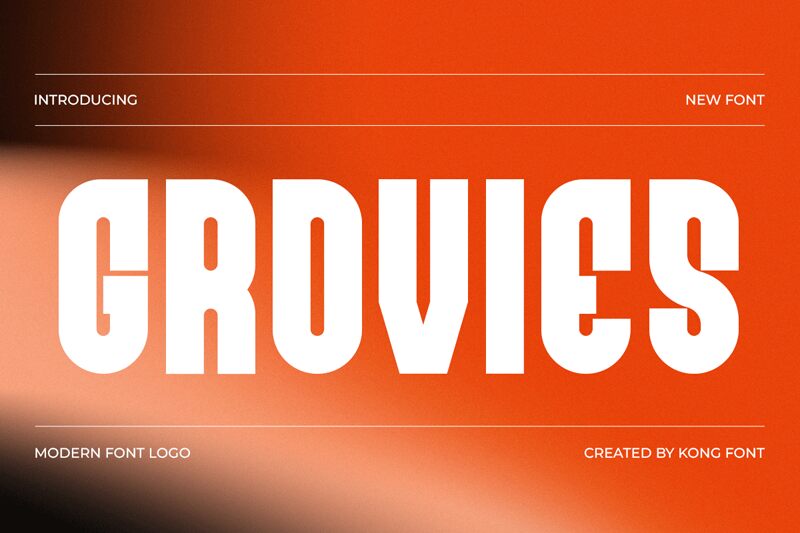
Grovies font by Kong Font hits with a tall, ultra-condensed stance and heavy, inky strokes that feel stamped down hard. Its tight width lets you stack big words into narrow spaces without losing punch, while the smooth, blocky shapes keep everything crisp and readable at a glance.
Using Grovies, this free condensed sans serif font shines on posters, streetwear logos, album covers, event flyers, punchy packaging labels, YouTube thumbnails, and bold website headers. Let it run large for maximum impact, then pair it with a wide, clean sans typeface for supporting text so the layout can breathe.